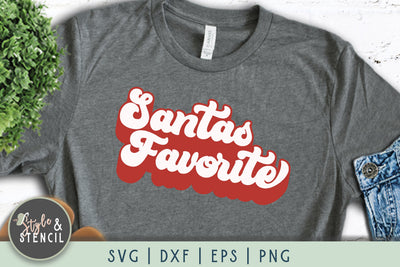
Santas Favorite Retro Christmas SVG
This Santas Favorite SVG is perfect for your new Christmas Shirt or Santa Onesie! Adorned with "Santas Favorite" in trendy retro font, this Christmas SVG is the perfect addition to your Retro Christmas decor by adding to a Christmas Mug or a Christmas shirt. The Retro Christmas Svg can be used on a kids Christmas shirt or onesie or on a pillow to complete your Christmas Decor. Use this Kids Christmas SVG to make your Christmas shirts with the following programs: SVG for Cricut Design Space, DXF for Silhouette Studio, PNG for printing, and EPS and vectors so you can design further and make your own!